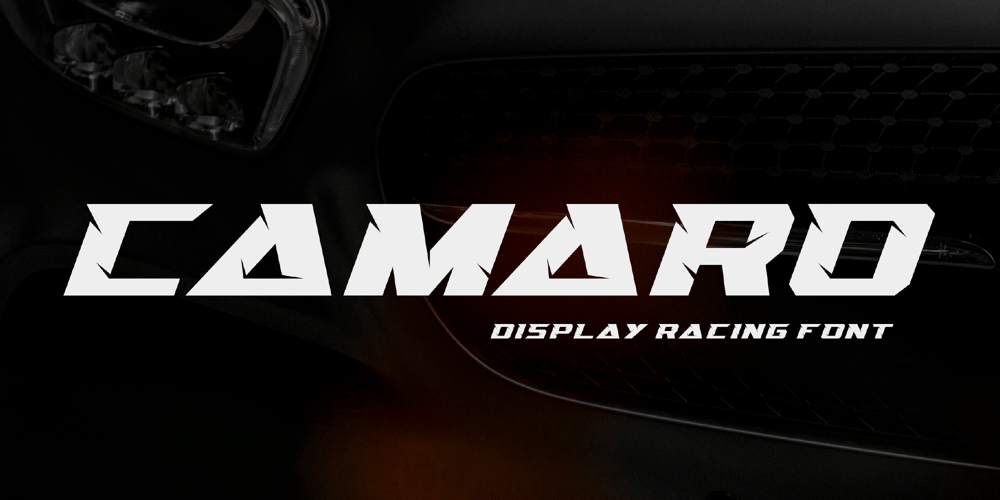
Camaro Font Family was designed by Achmad Yani and published by Flawlessandco. Camaro contains 1 styles and family package options. Introducing “Camaro” – a dynamic and high-octane racing display font that embodies speed, excitement, and adrenaline. Camaro showcases a strong and sleek design that mimics the aerodynamic lines of racing cars. There’s some connected letters and some alternates that suitable for any graphic designs such as branding materials, t-shirt, print, business cards, logo, poster, t-shirt, photography, quotes .etcThis font support for some multilingual. Also contains uppercase A-Z and lowercase a-z, alternate character, numbers 0-9, and some punctuation.If you need help, just write me! Thanks so much for checking out my shop!